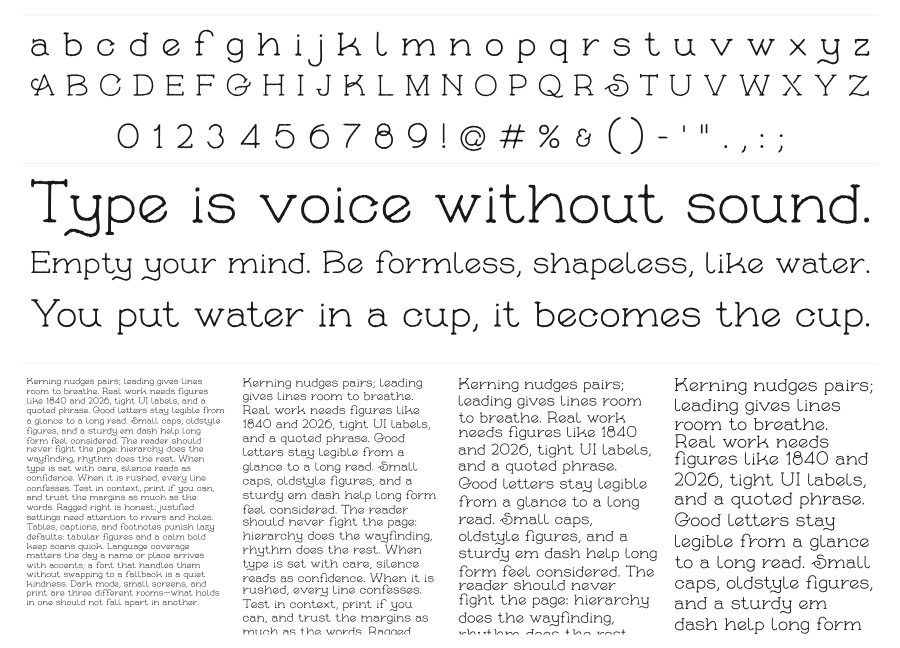
Skybird
Skybird is a light, whimsical display face from Phitradesign with thin, hand-drawn letterforms that curl and bounce with a playful, storybook energy. The strokes feel genuinely sketched rather than digitally perfected, giving each character a loose, quirky charm. Best kept to headlines, invitations, and packaging where personality can take center stage over strict legibility.